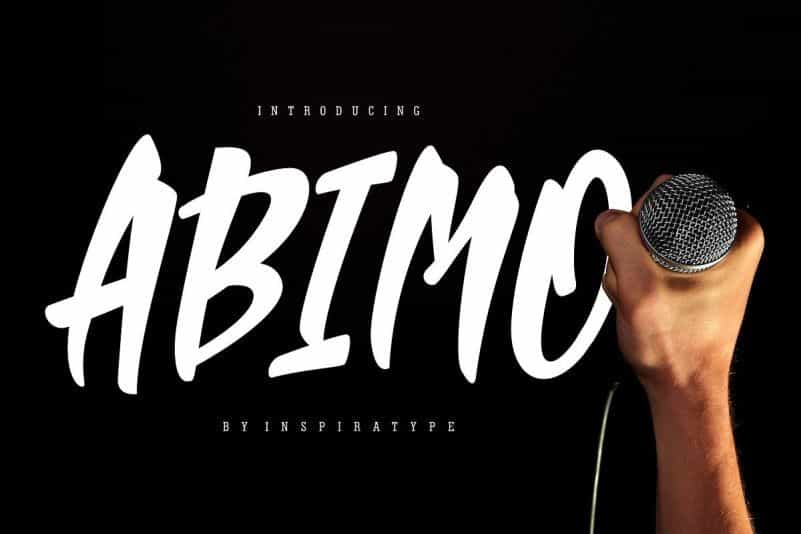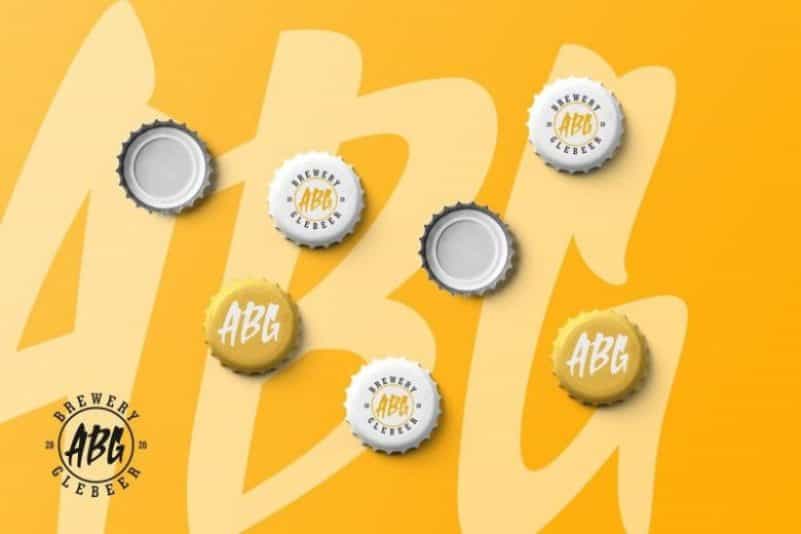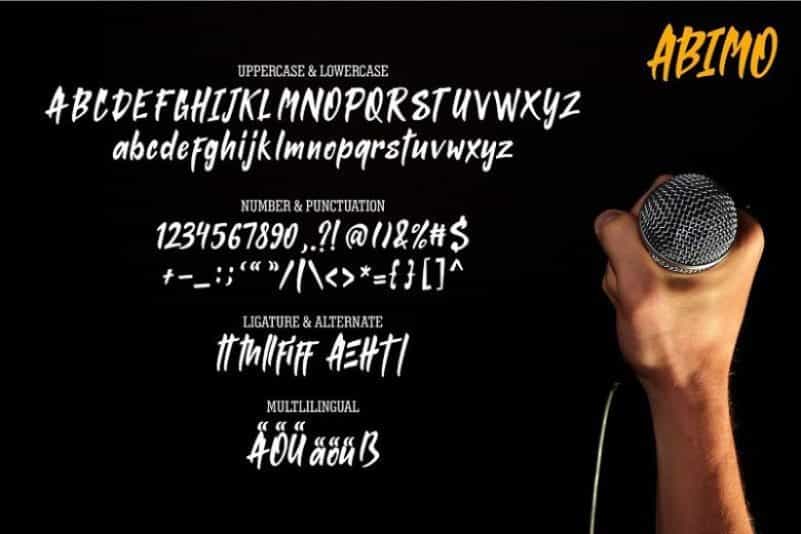
“Abimo” is a display font that was created by hands and it is inspired by the old posters. Comes with lowercase and uppercase letters, numerals, punctuations and so many other variations of each character that also include OpenType alternatives, common ligatures and even additional swash to let you personalize your designs. This is the best way to design Logotype, Letterhead, Poster, Apparel Design and Label.